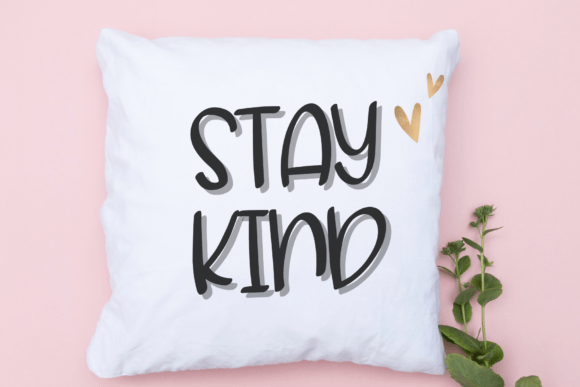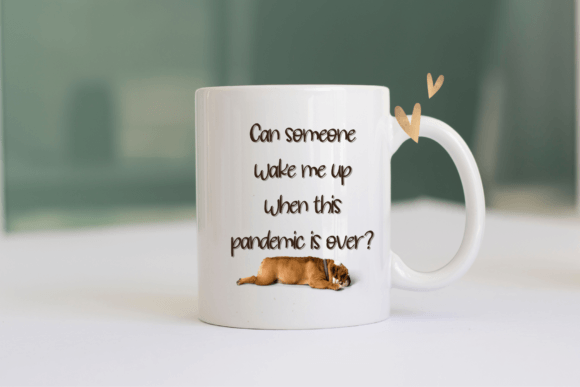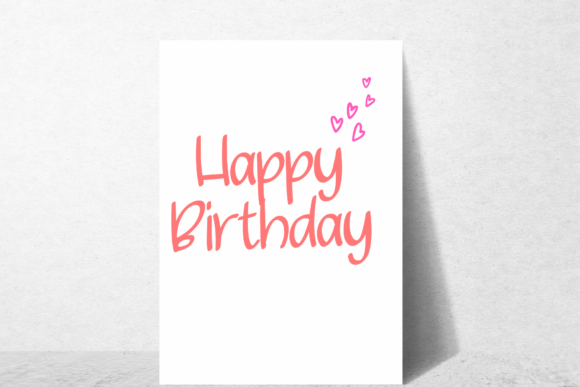
Cake Pop Font
Cake Pop is a friendly handwritten font that will add elegance and class to any of your design projects, logos, wedding designs, social media posts, advertisements, product packaging, product designs, label, photography, watermark, invitation, stationery, and any other projects.